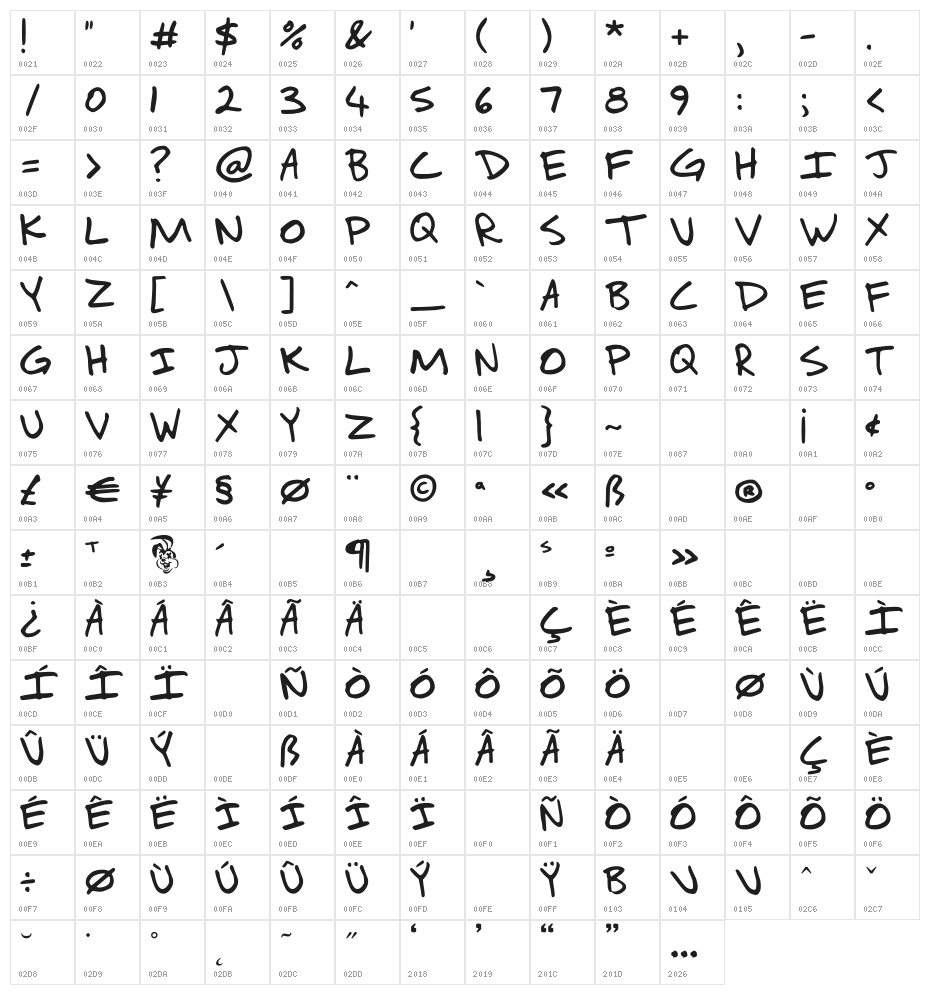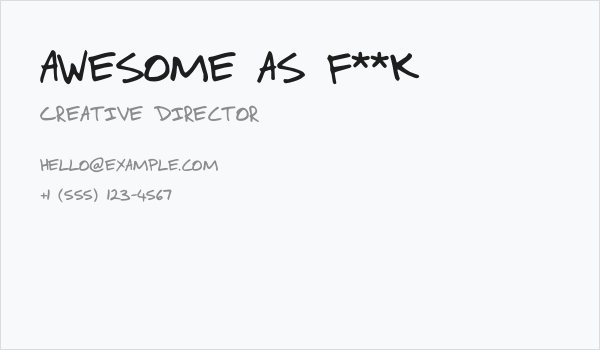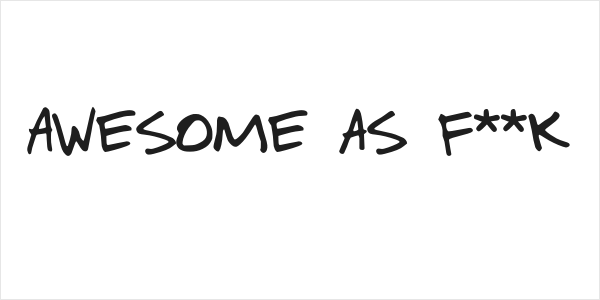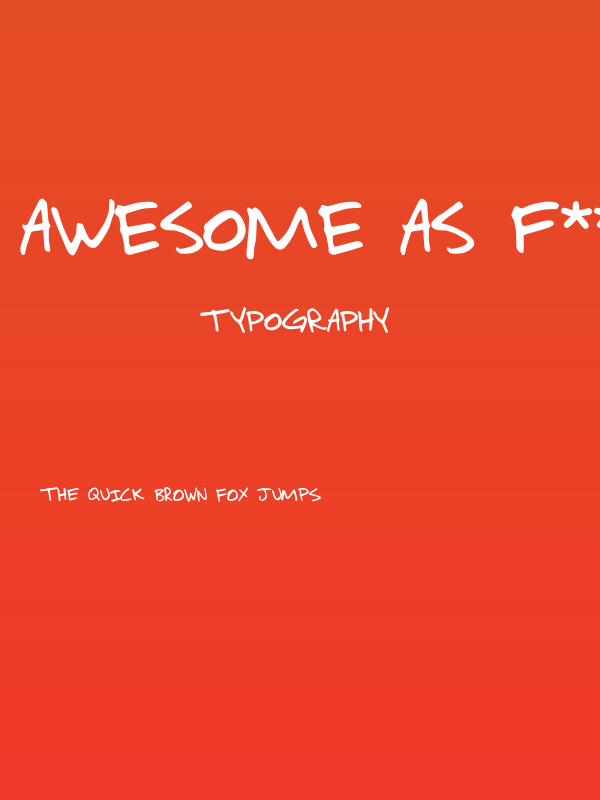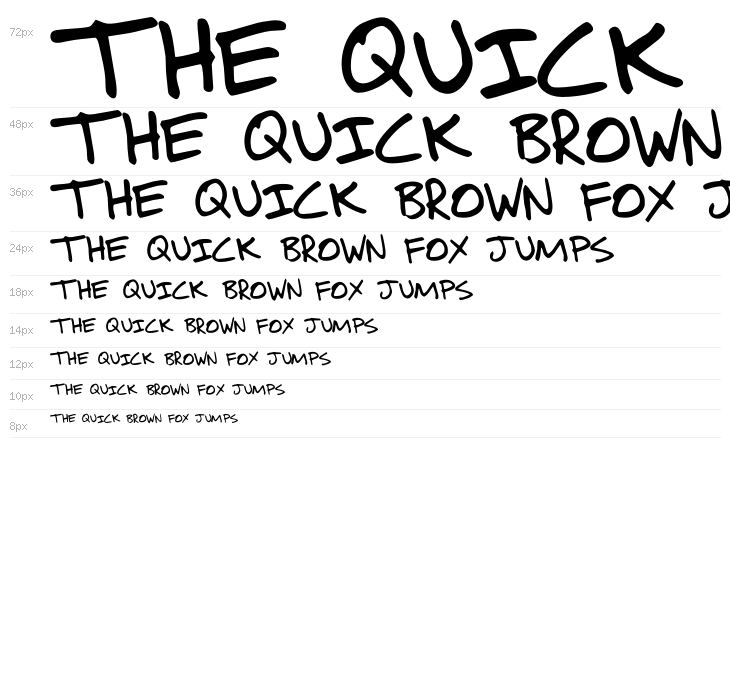
Awesome as f**k Font
Awesome as f**k Description
This font exudes a playful and casual vibe, characterized by its handwritten style that mimics natural penmanship. The letters are slightly slanted, adding a dynamic and informal touch. The strokes are bold and consistent, providing a sense of uniformity despite the freeform appearance. The characters are well-spaced, ensuring readability while maintaining a relaxed aesthetic. This font is versatile, suitable for projects that require a personal and approachable feel. The numerals and special characters are crafted with the same playful energy, making them cohesive with the alphabet set.
| Use Case | Logos, Headlines, Informal Text |
| Proposed Projects | Ideal for greeting cards, casual branding, social media graphics, and personal blogs. |